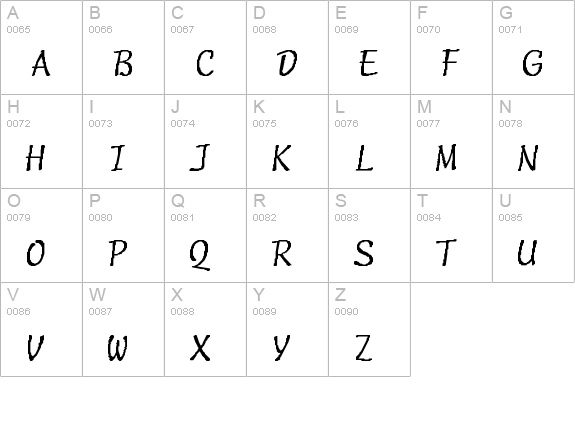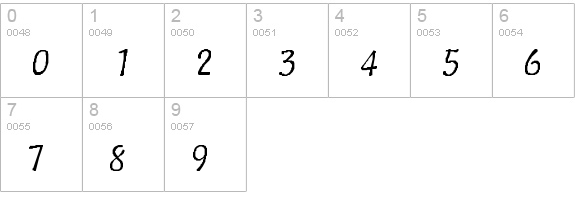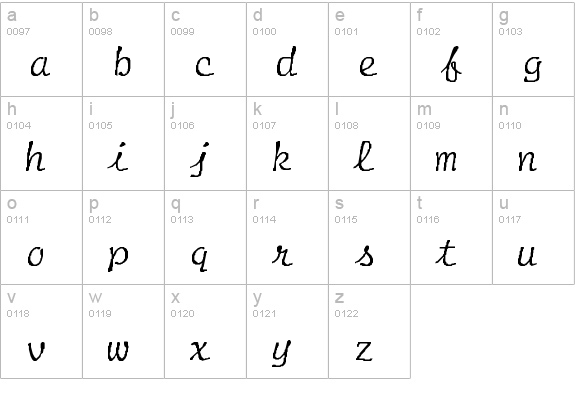
Manguste Font Details
Manguste font is a sleek and modern typeface that exudes elegance and sophistication. With its clean lines and stylish curves, Manguste is perfect for adding a touch of class to any design project. The font's versatility makes it suitable for a wide range of applications, from branding and marketing materials to website design and more. But the best part? Manguste font is completely free to download at FontsMarket.com! This means you can access this stylish typeface without breaking the bank, making it a valuable addition to your font collection. Don't miss out on the opportunity to elevate your designs with the timeless beauty of Manguste font.